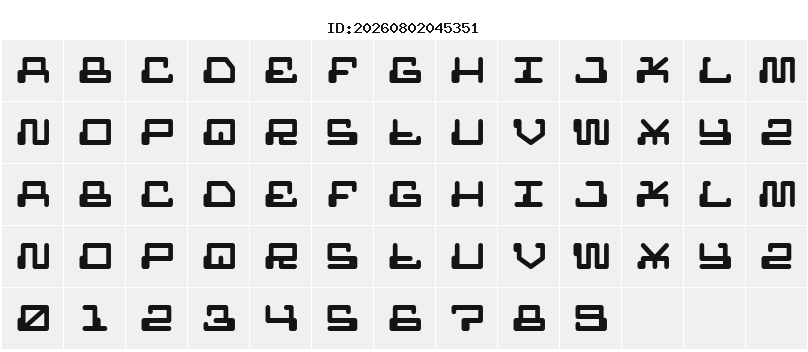
• Font Name: MR FUGLESANG CLEAN
• Full Font Name: MR FUGLESANG CLEAN
• Designer: Johan
• Description: DEDICATED TO MR FUGLESANG - THE FIRST SWEDE IN SPACE!
About MR FUGLESANG CLEAN.ttf
MR FUGLESANG CLEAN.ttf is a modern, elegant sans-serif font designed for ultimate readability and visual harmony. Perfect for branding, headlines, web design, and print materials.